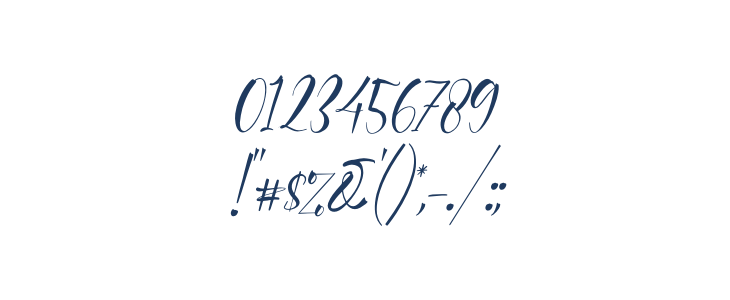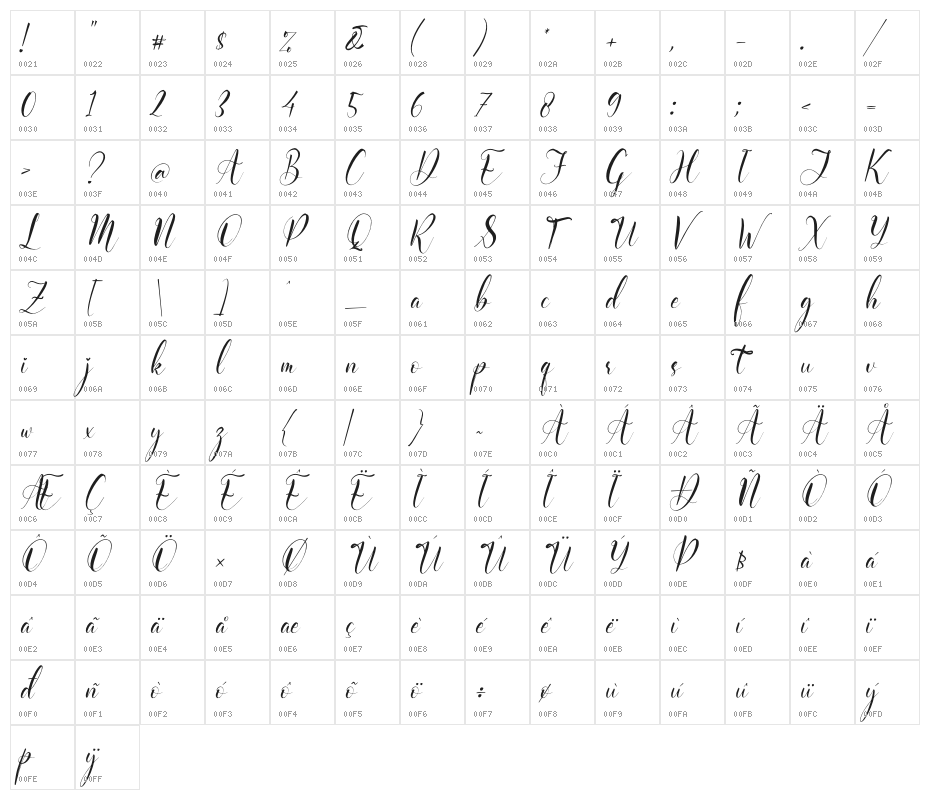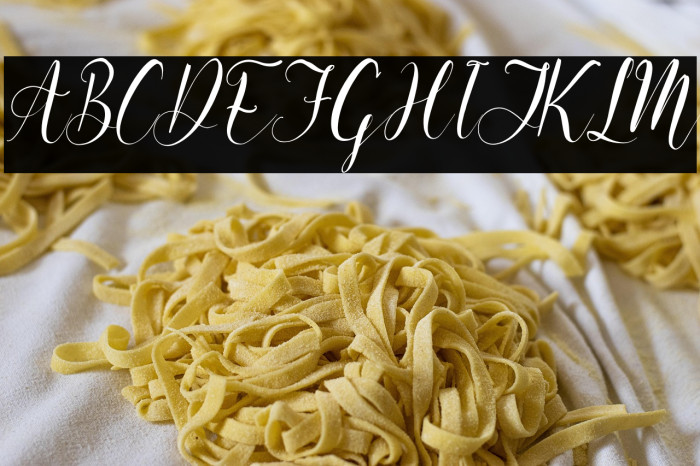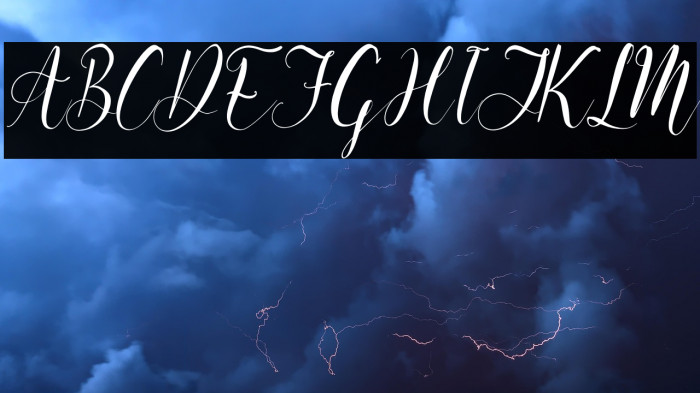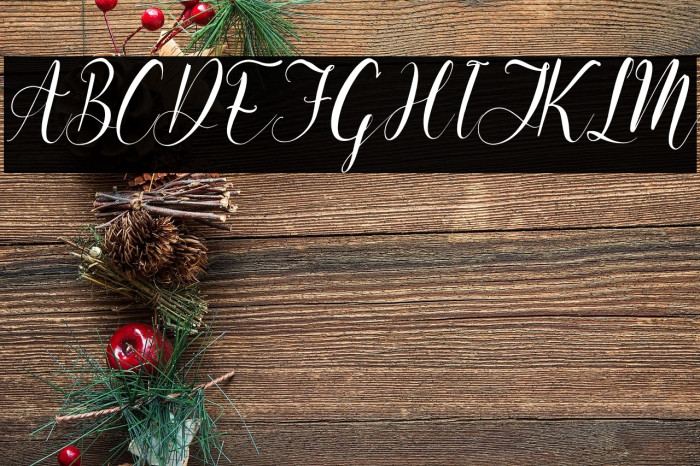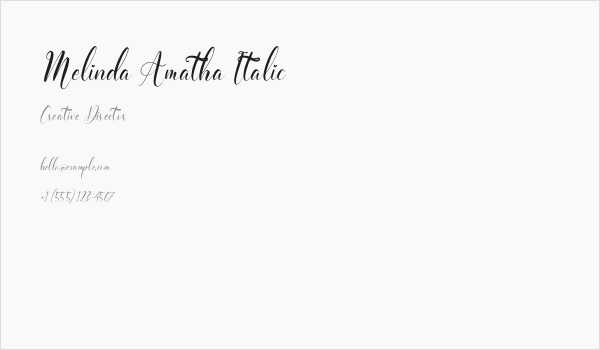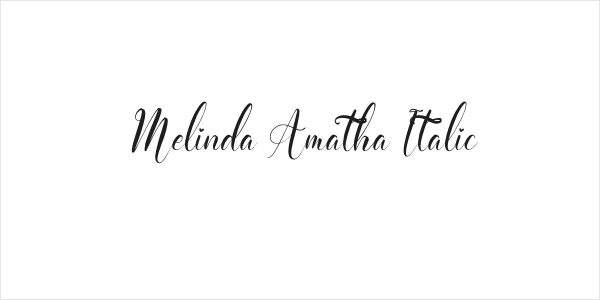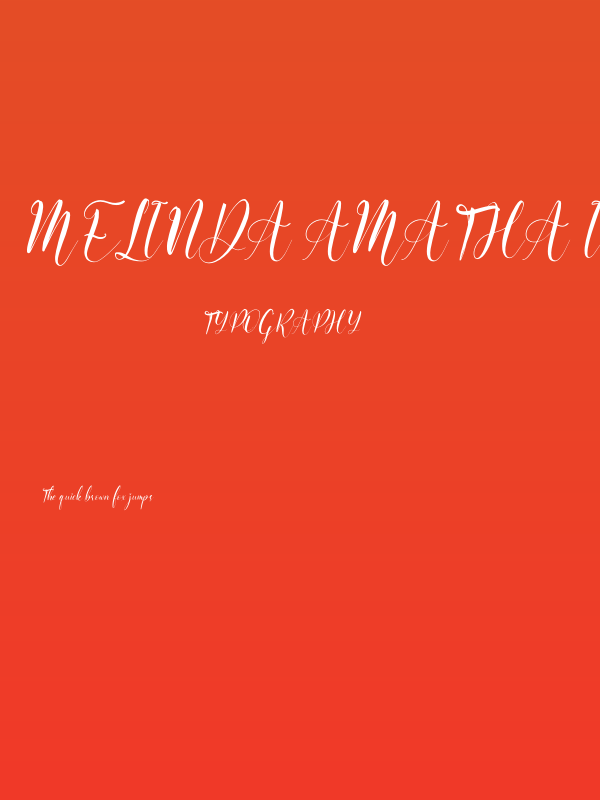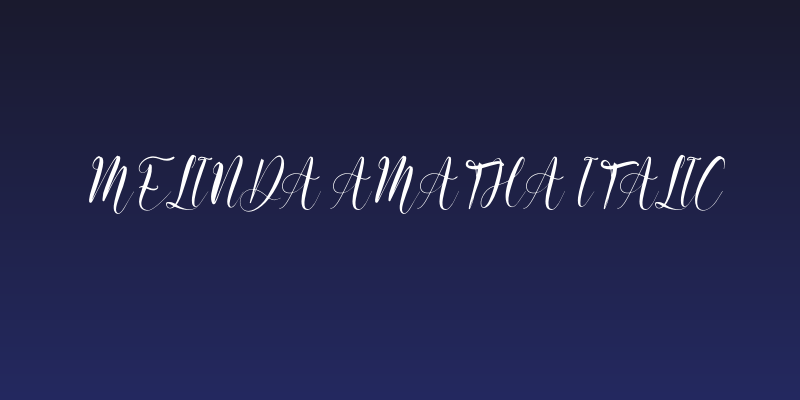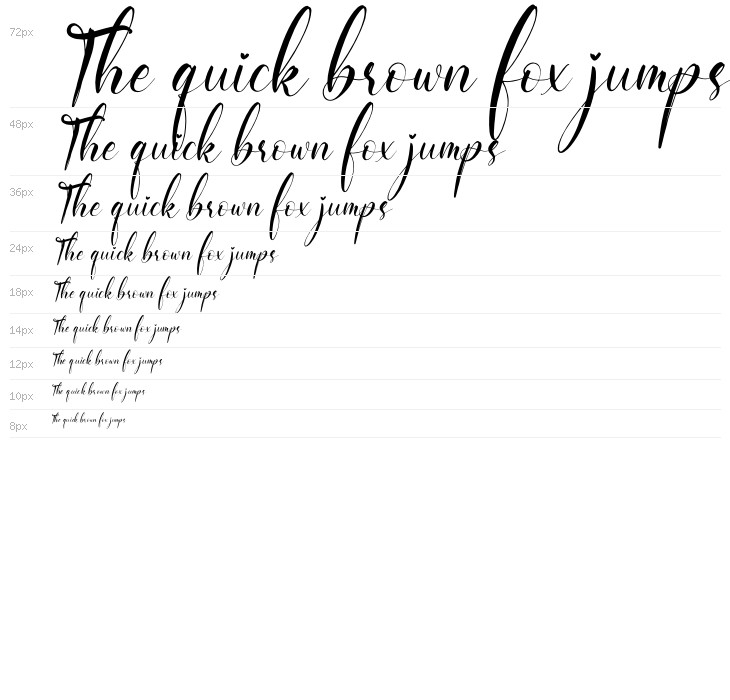
Melinda Amatha Italic Font
Melinda Amatha Italic Description
This elegant script font features a flowing, cursive style with high contrast between thick and thin strokes. The characters are connected, creating a seamless and graceful appearance. The uppercase letters are tall and slender, while the lowercase letters maintain a consistent flow, enhancing the overall fluidity. The font exudes sophistication and charm, making it ideal for formal invitations, branding, and decorative purposes. Its italic nature adds a dynamic and stylish touch, perfect for projects that require a personal and artistic flair.
| Use Case | Invitations, Branding, Decorative |
| Proposed Projects | Ideal for wedding invitations, elegant branding, greeting cards, and decorative headings. |